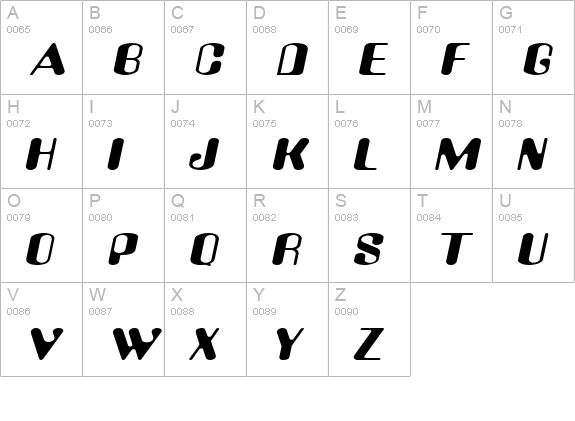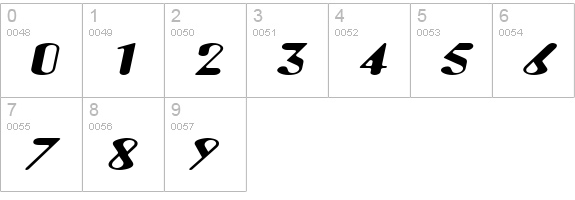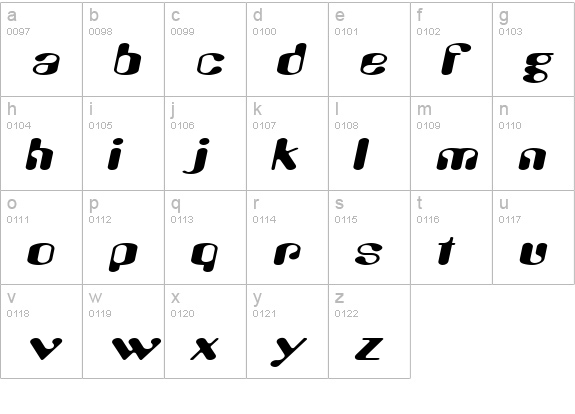
Amos Extended Italic is a distinctive, extended-width, italic variant in the Amos typeface family \xE2\x80\x94 well suited to design and typography projects.
Amos Extended Italic font exudes a sense of elegance and sophistication with its sleek and modern design. Its slanted and stylish italicized characters add a touch of flair to any project, making it perfect for anything from print materials to digital designs. The extended width of the characters gives this font a unique and eye-catching appeal, making it stand out from the crowd. And the best part? Amos Extended Italic font is completely free to download at FontsMarket.com! This means you can enhance your projects with this stunning typeface without breaking the bank. Don't miss out on the opportunity to add a touch of class to your designs with Amos Extended Italic font, available for free download now.